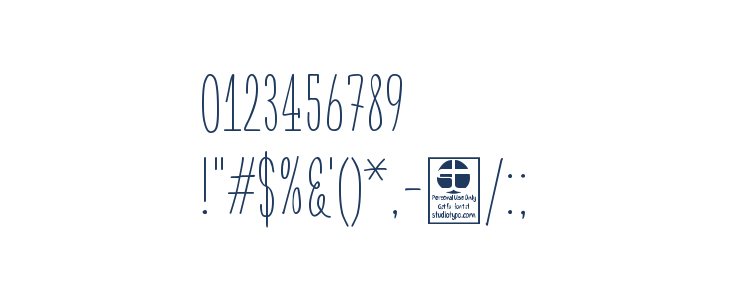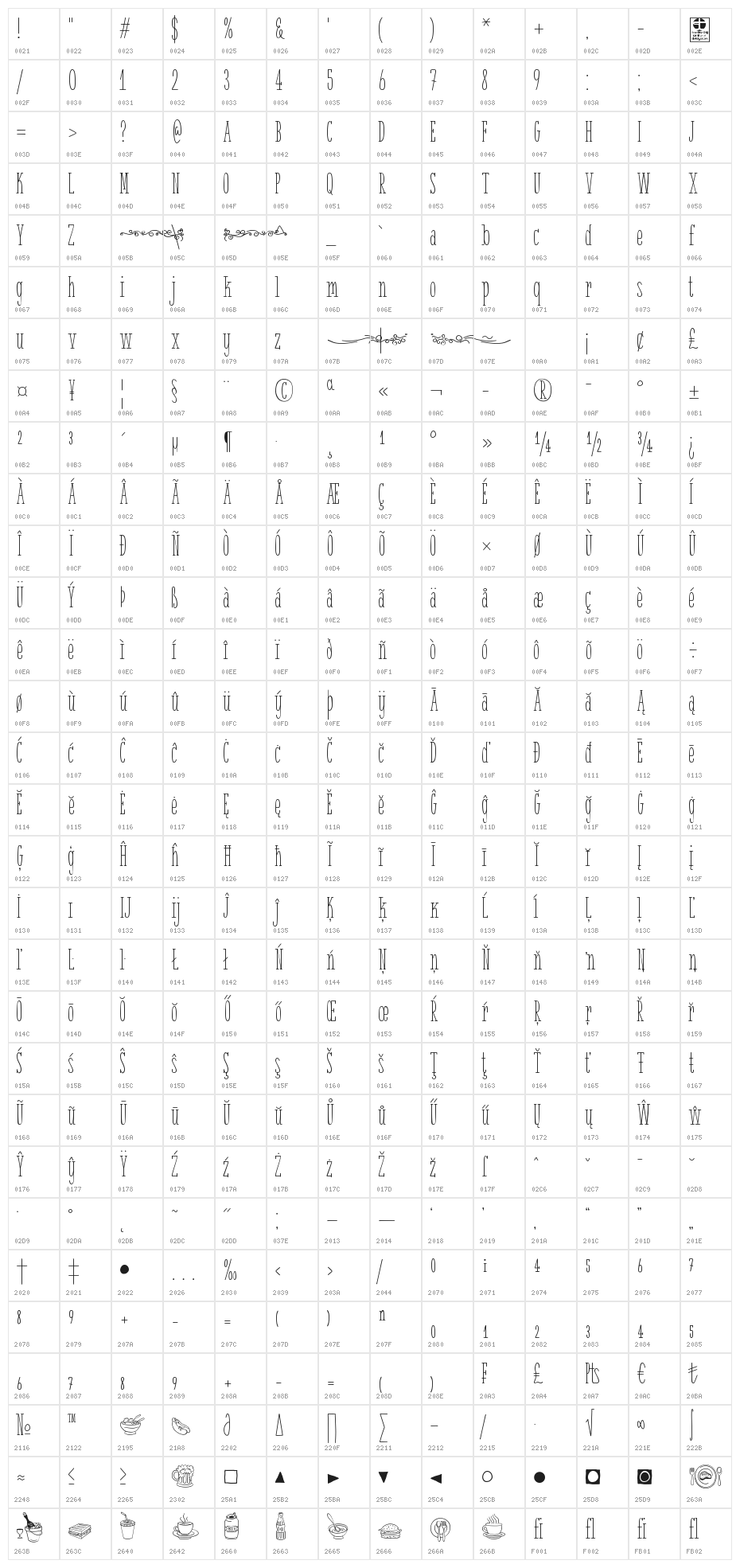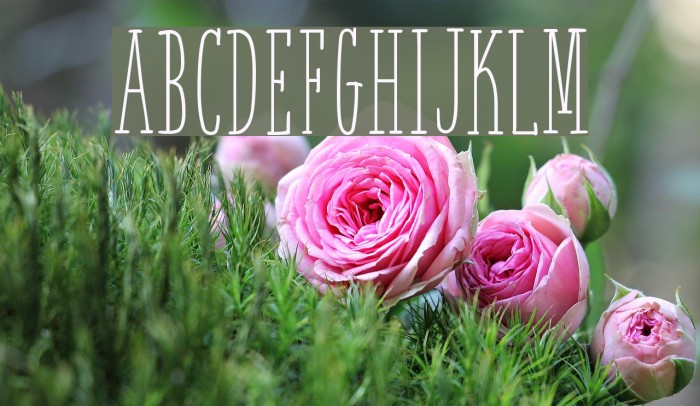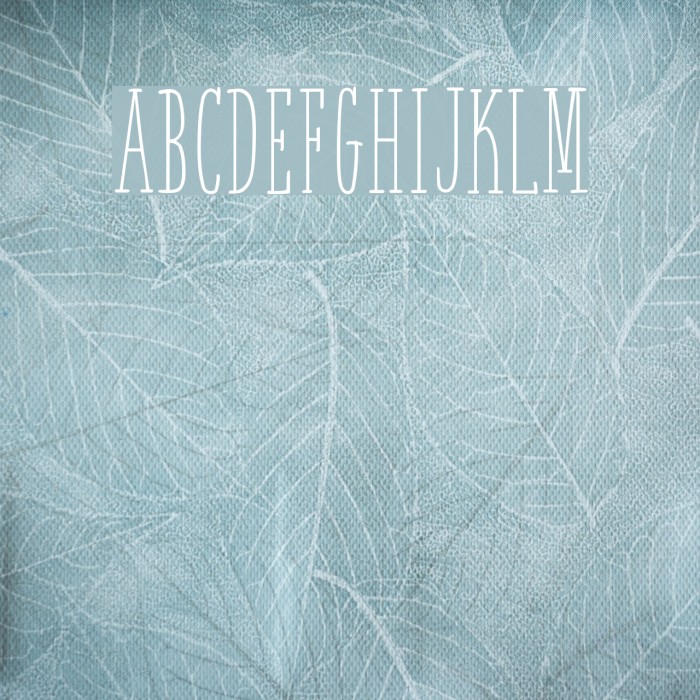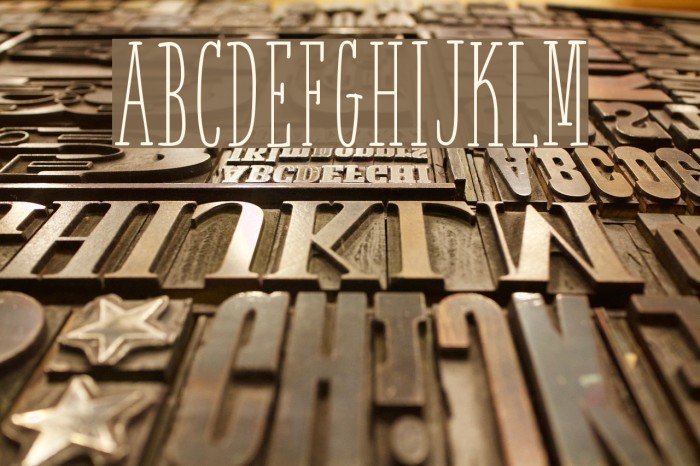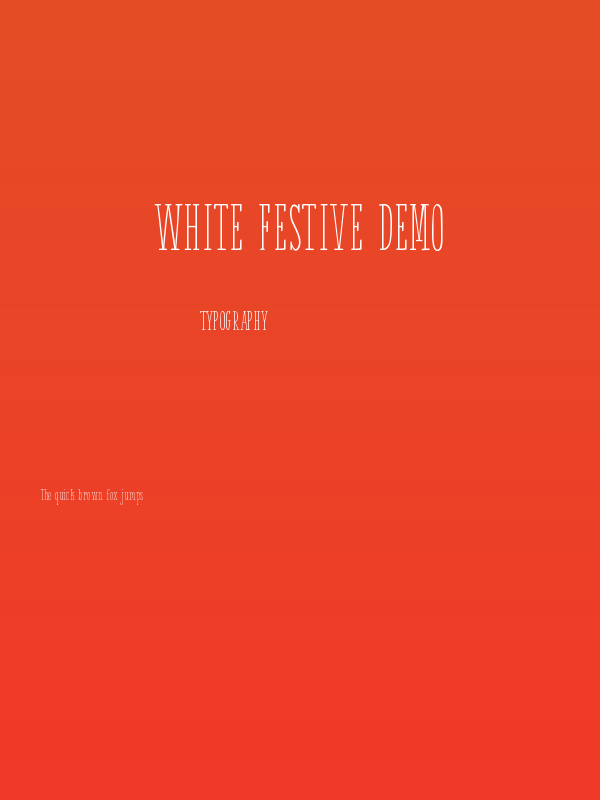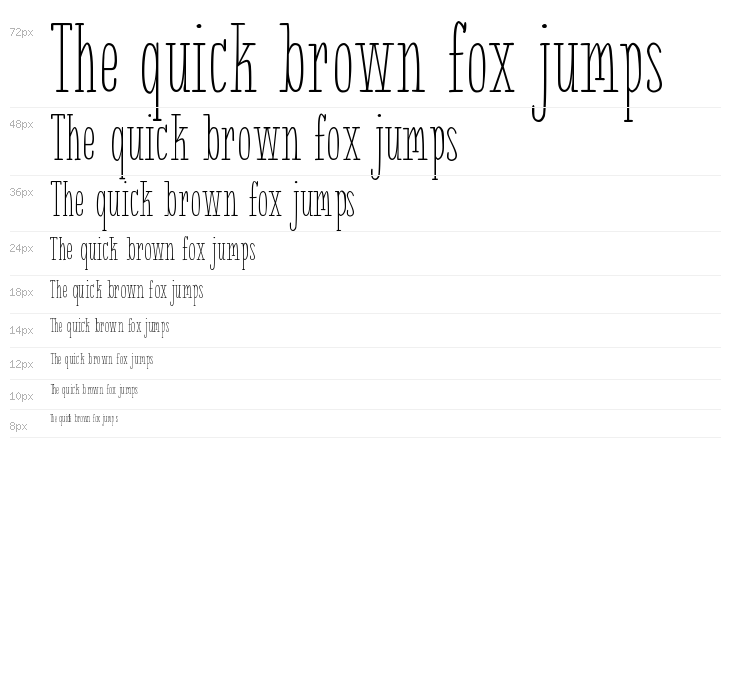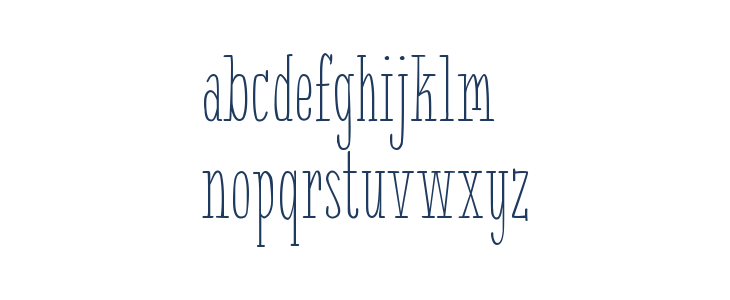
White Festive Demo Font
White Festive Demo Description
This font features a tall, slender design with an elegant and sophisticated appearance. The characters are elongated with a consistent stroke width, giving it a refined and stylish look. The uppercase letters are particularly elongated, while the lowercase letters maintain a more traditional height, creating a pleasing contrast. The numerals and special characters follow the same slender and elongated style, ensuring a cohesive appearance across all characters. This font's clean lines and minimalistic design make it suitable for a variety of applications where a touch of elegance is desired.